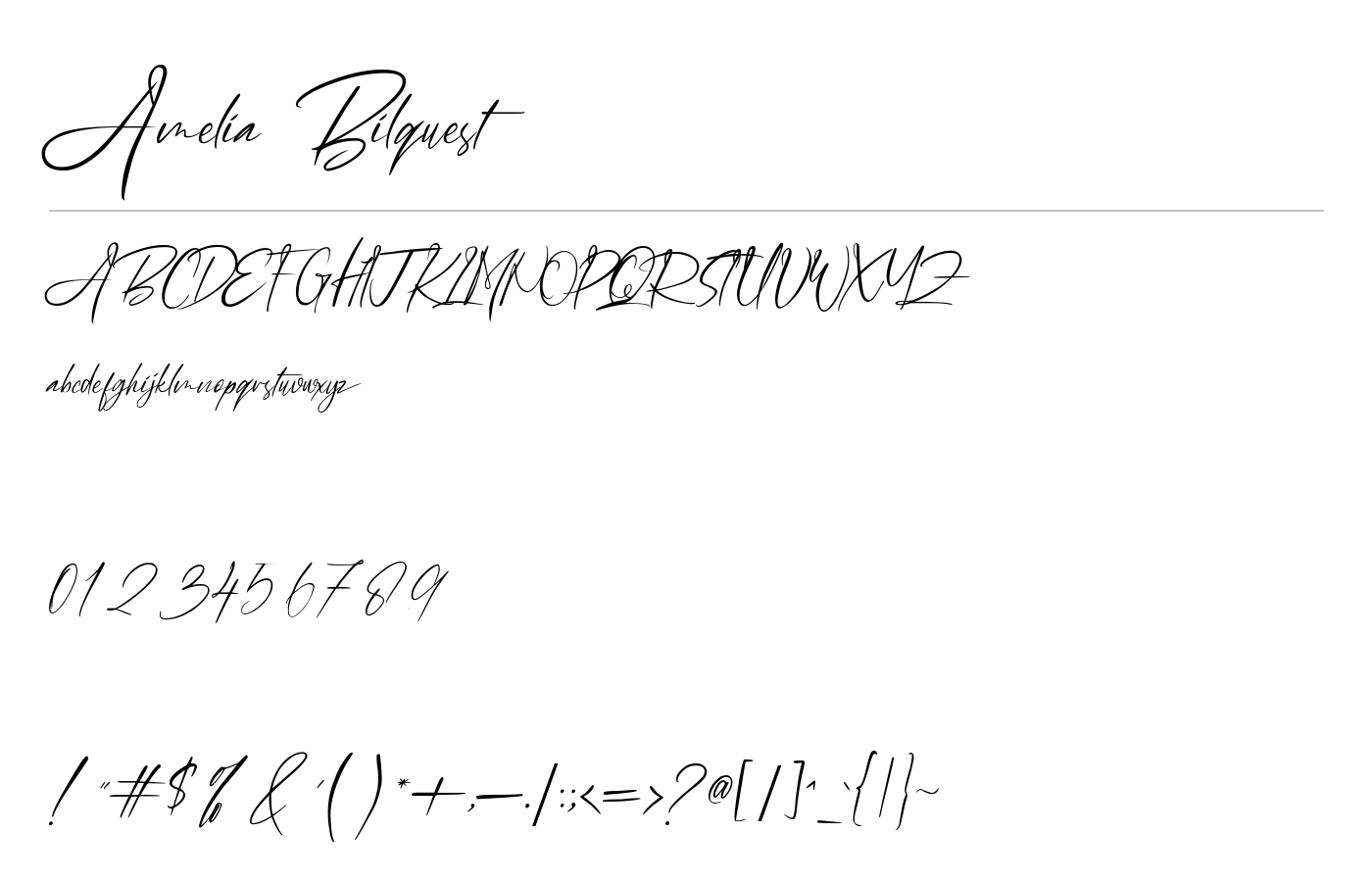
Amelia Bilquest is an elegant, modern script font with a delicate and flowing handwritten style. Its thin strokes and high contrast create a sophisticated and artistic feel, making it ideal for luxury branding, wedding invitations, and fashion logos where a graceful and personal touch is desired. This font works best in headlines and decorative text due to its stylish cursive flair and intricate letterforms.
Amelia Bilquest Font
About Amelia Bilquest Font